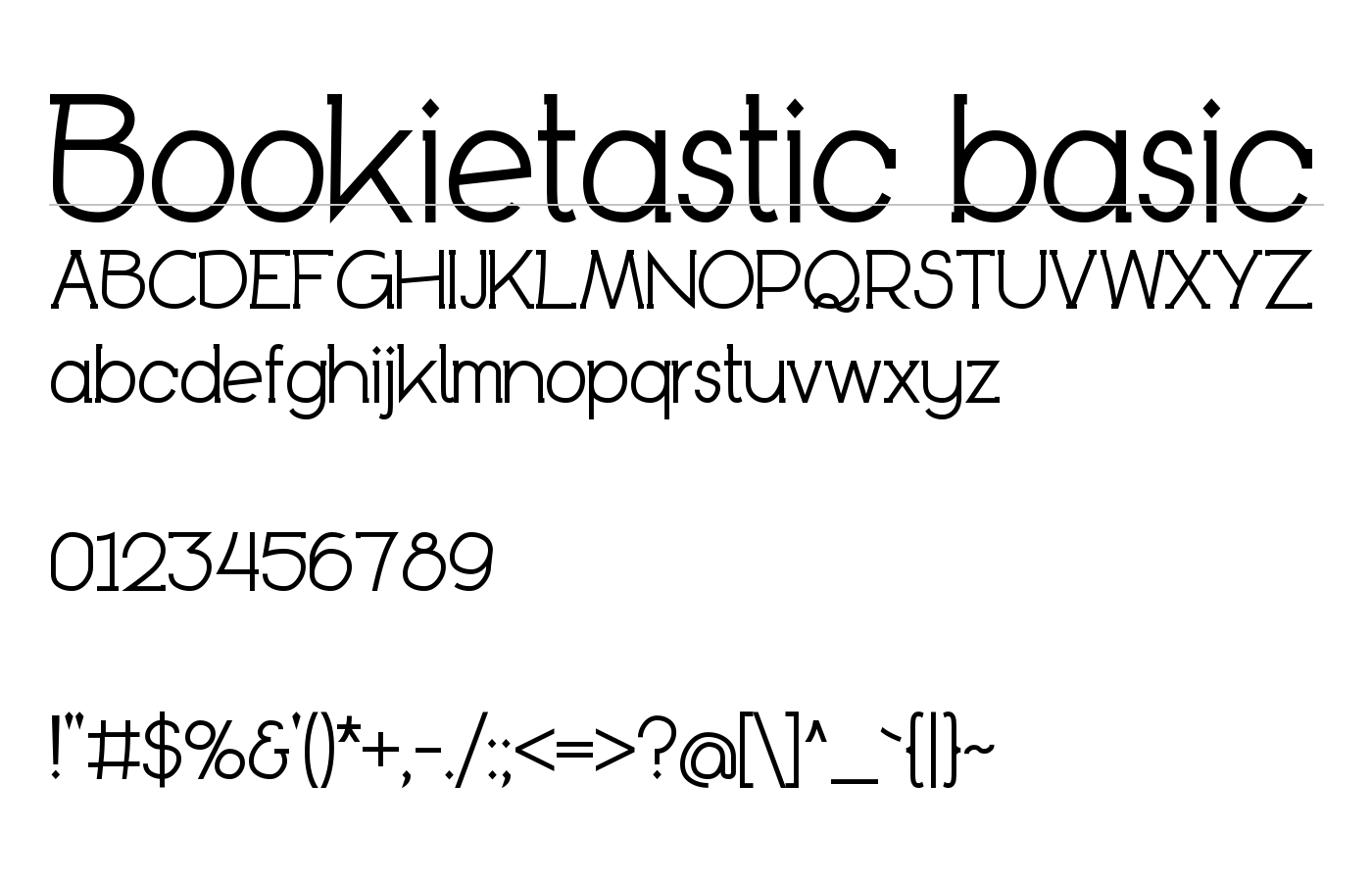
Bookietastic Basic is a light, narrow sans serif font with a playful yet sophisticated feel, featuring gently curved letterforms and subtle stroke contrast that lend it a modern, artistic character. Its slightly condensed proportions and unique details, like the distinctive tail on the ‘Q’ and the single-story ‘a’ and ‘g,’ make it ideal for creative branding, editorial headlines, and stylish packaging where a touch of personality and clarity are desired. This font works well in designs seeking a clean but friendly voice with a contemporary edge.
Bookietastic basic Font
About Bookietastic basic Font
| Font family | Bookietastic basic Font |
| Designer | Yun González |